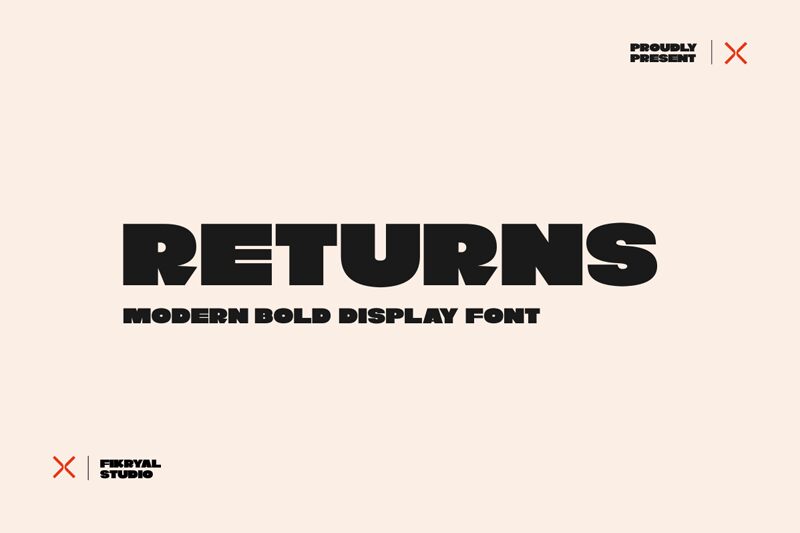
Returns is a modern sans serif with a strong presence and geometric structure. This free font is characterized by its minimalistic design, clean appearance, and high impact. The font balances modern aesthetics with functionality, making it an excellent choice for contemporary design projects.
Best used in logo design, branding, packaging, website design, and editorial projects, Returns is also suitable for posters, business cards, advertisements, signage, and mobile apps. Its versatility ensures it enhances both digital and print platforms effortlessly.